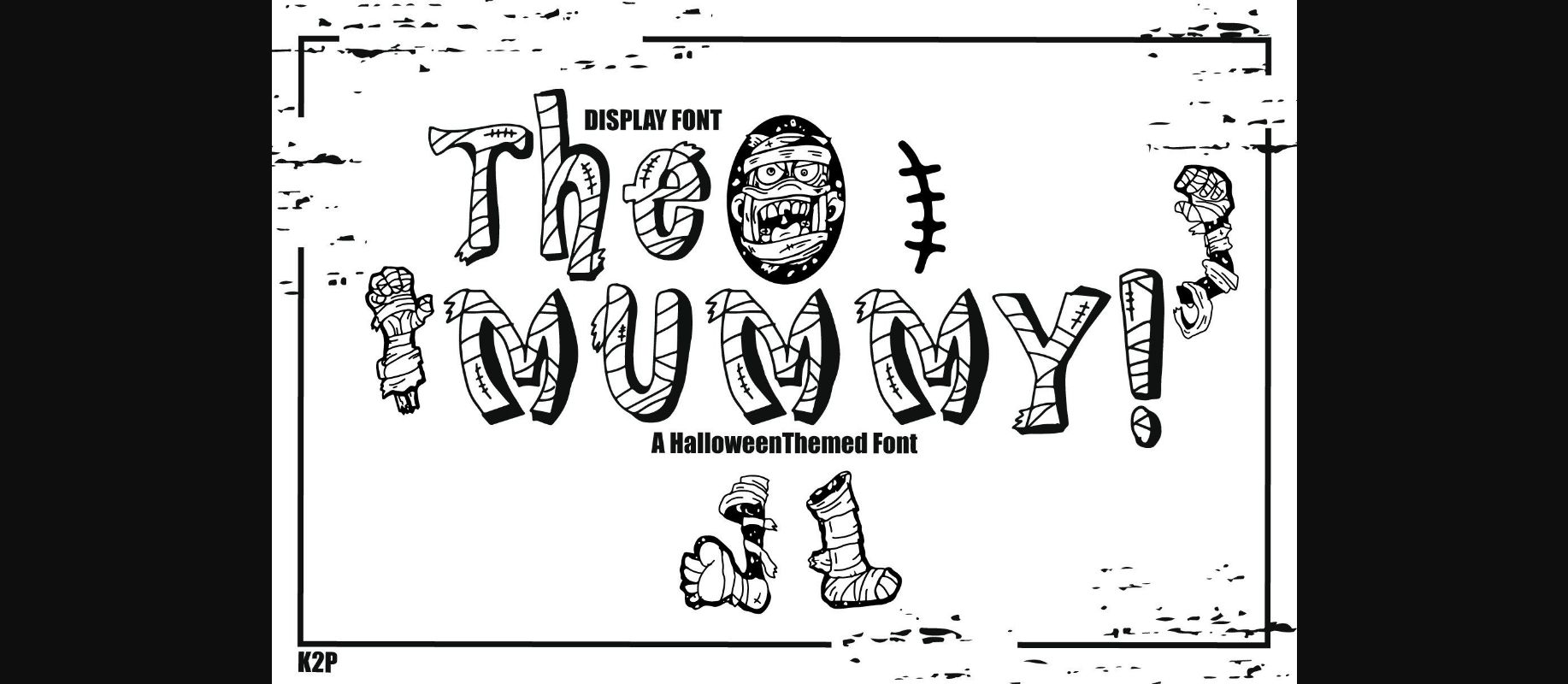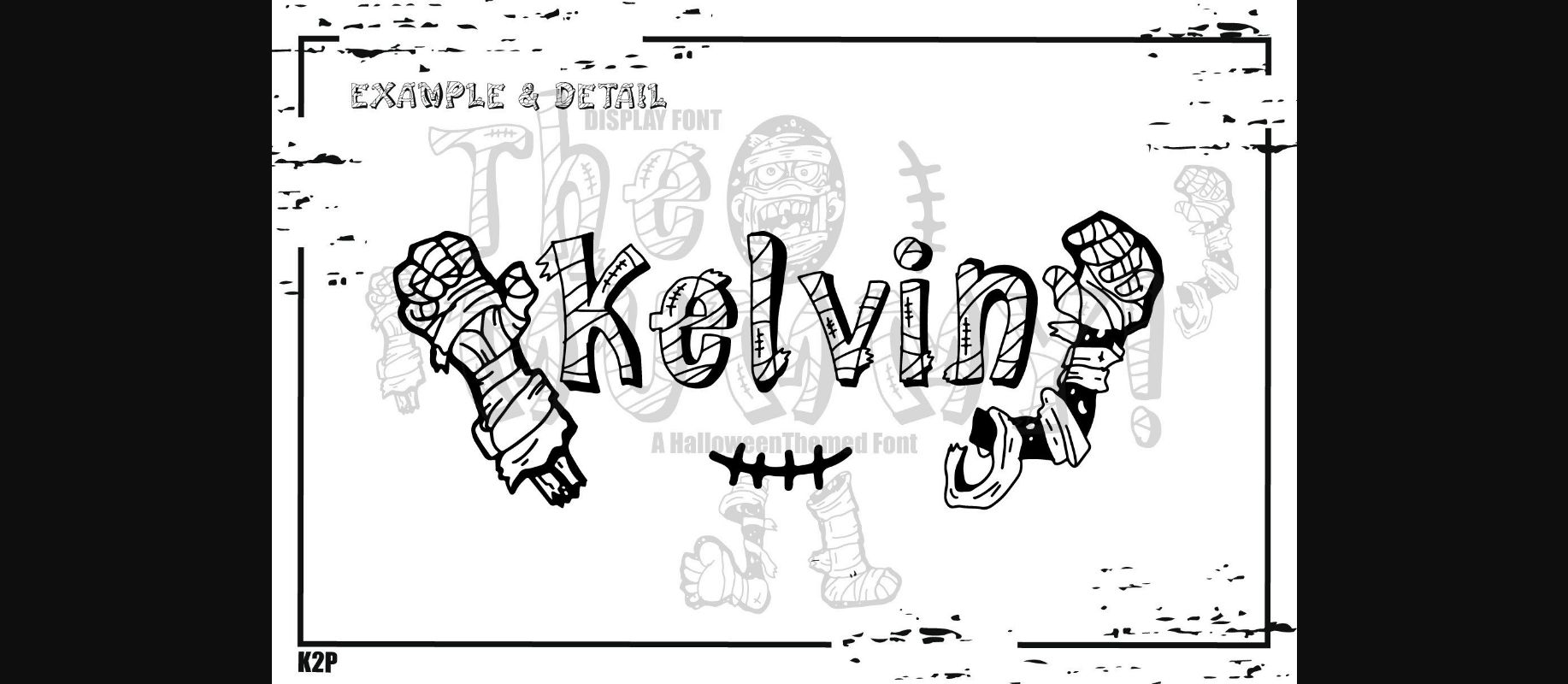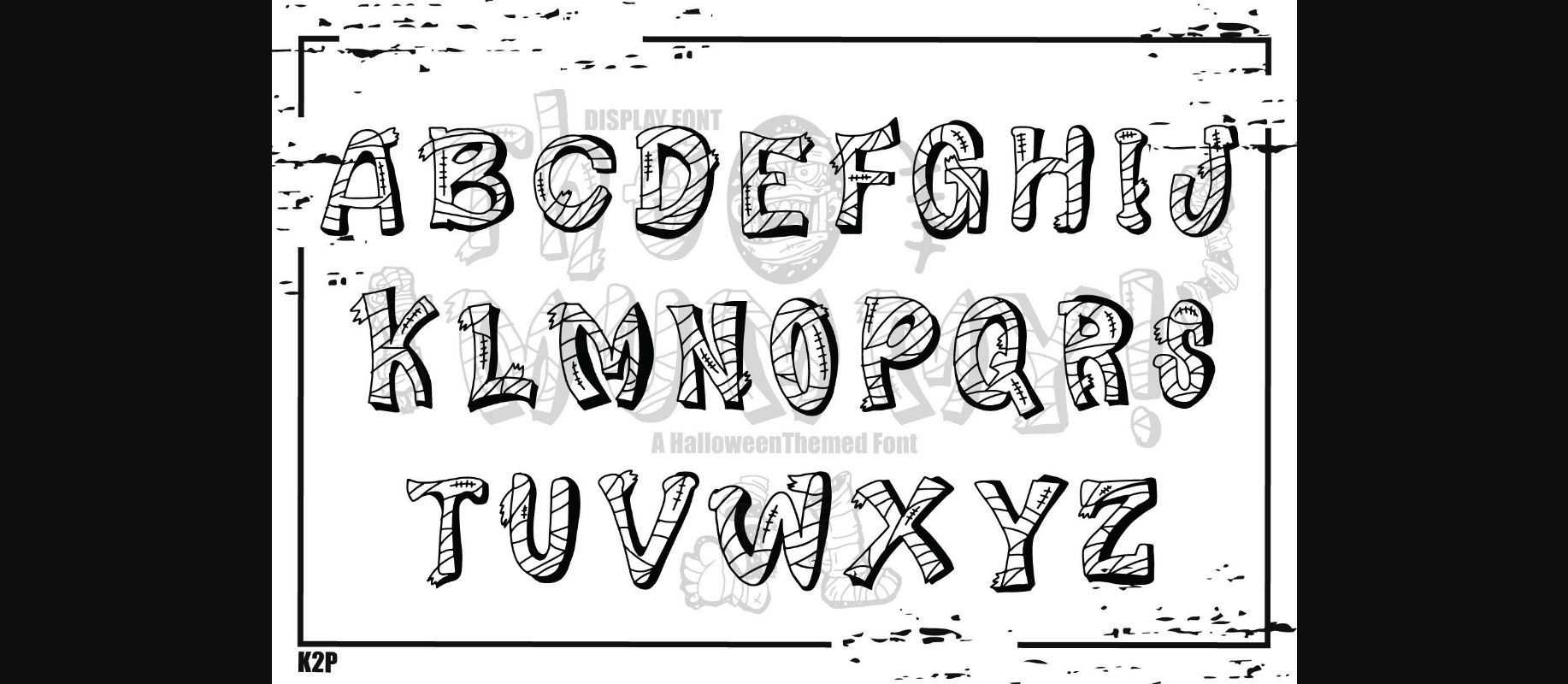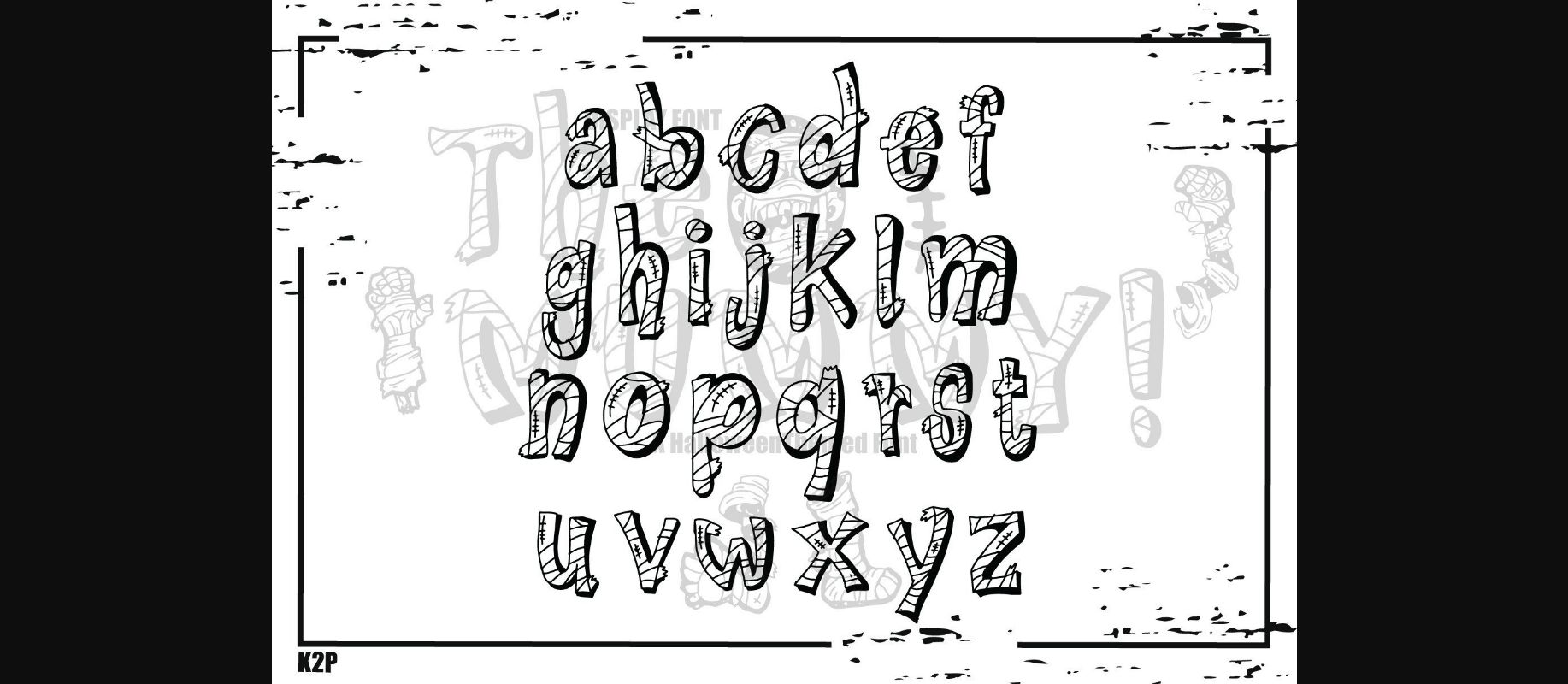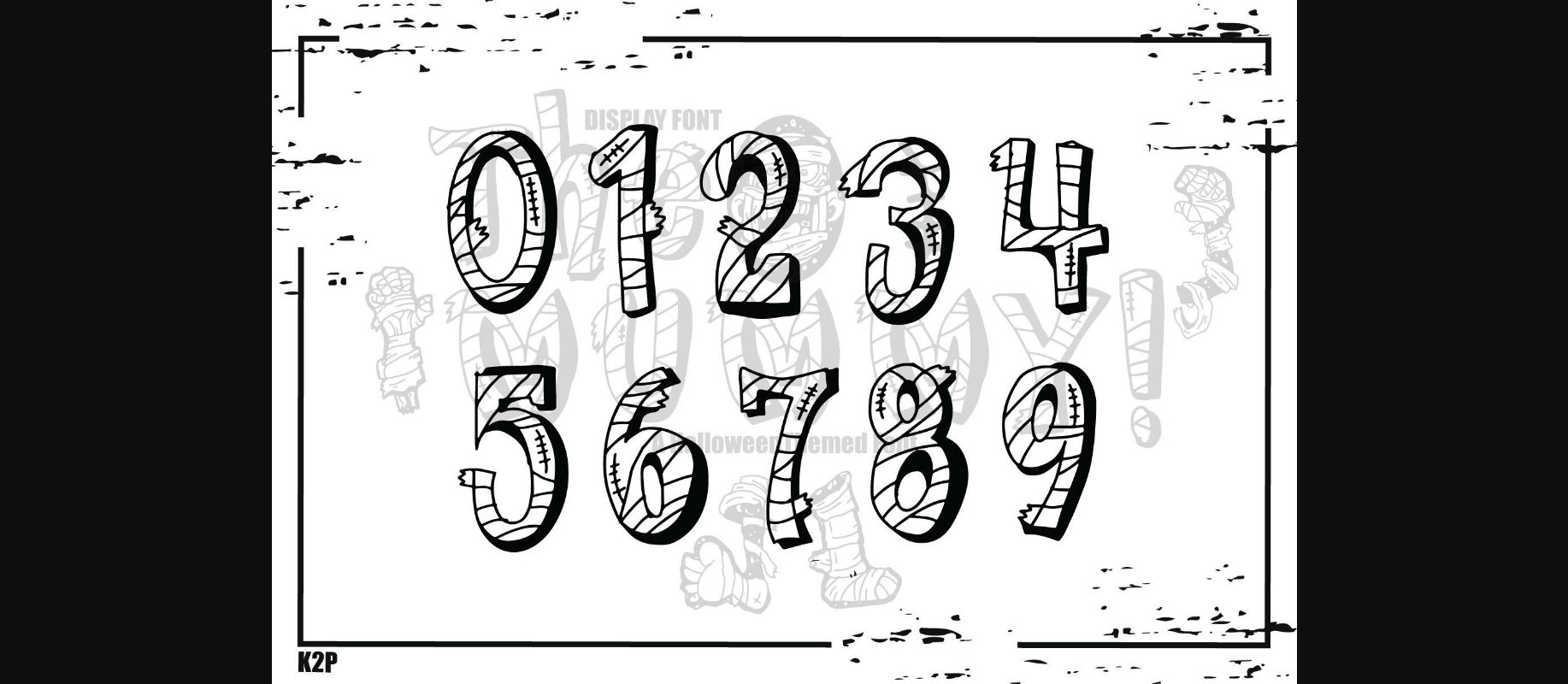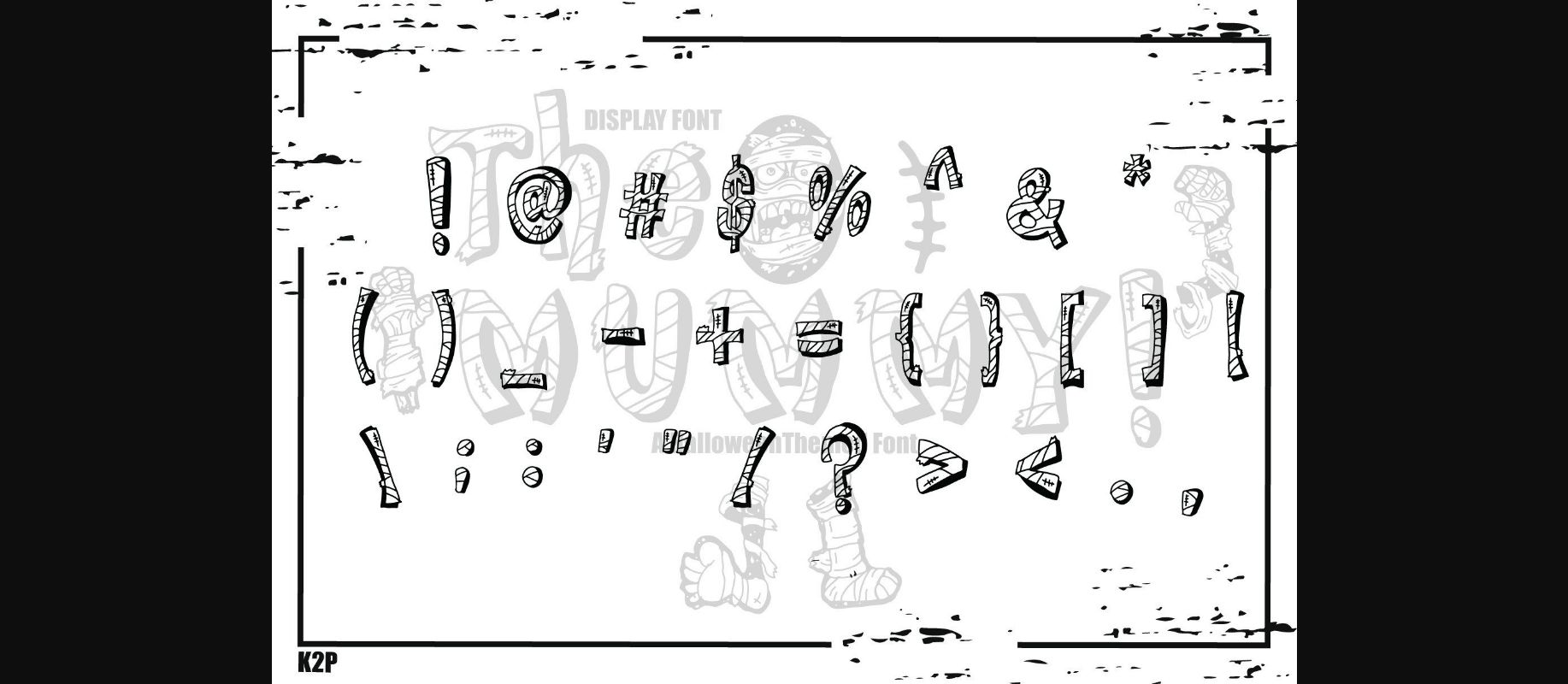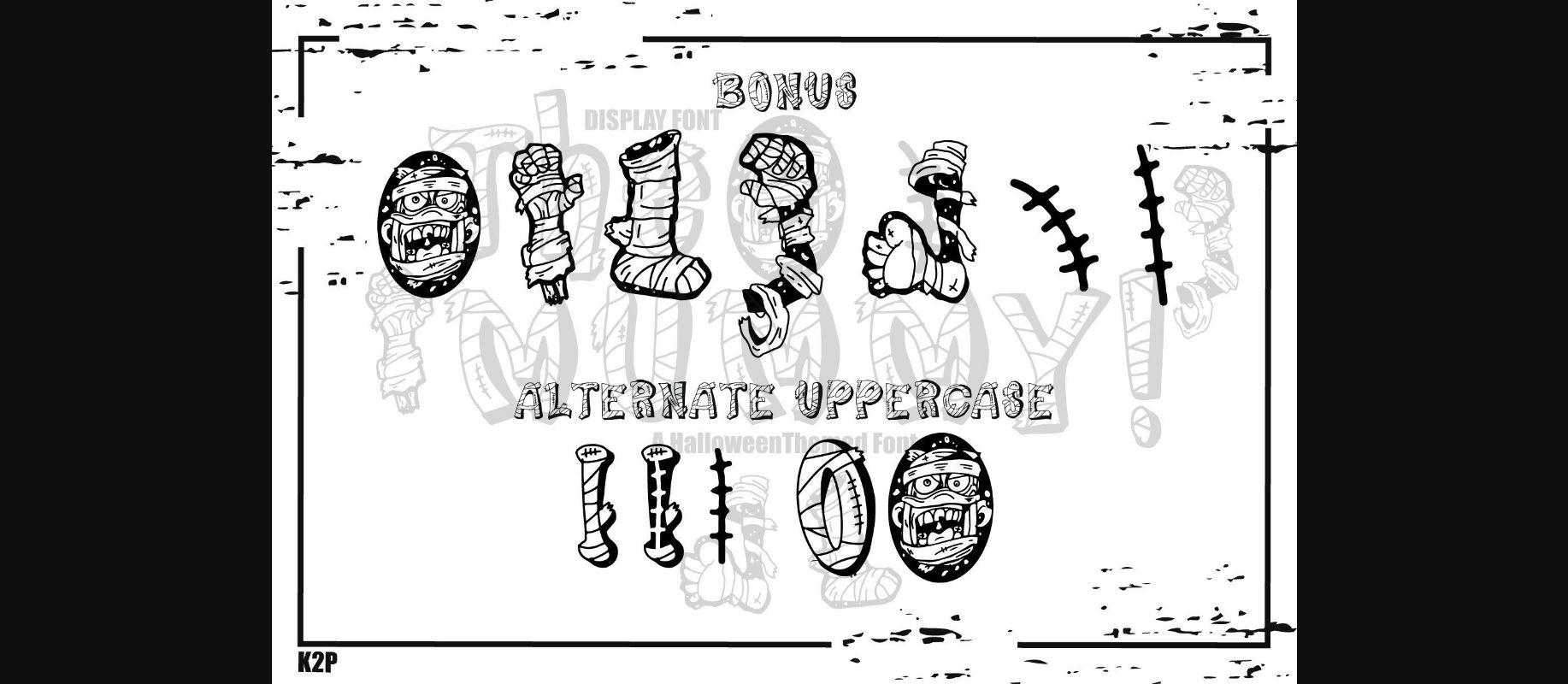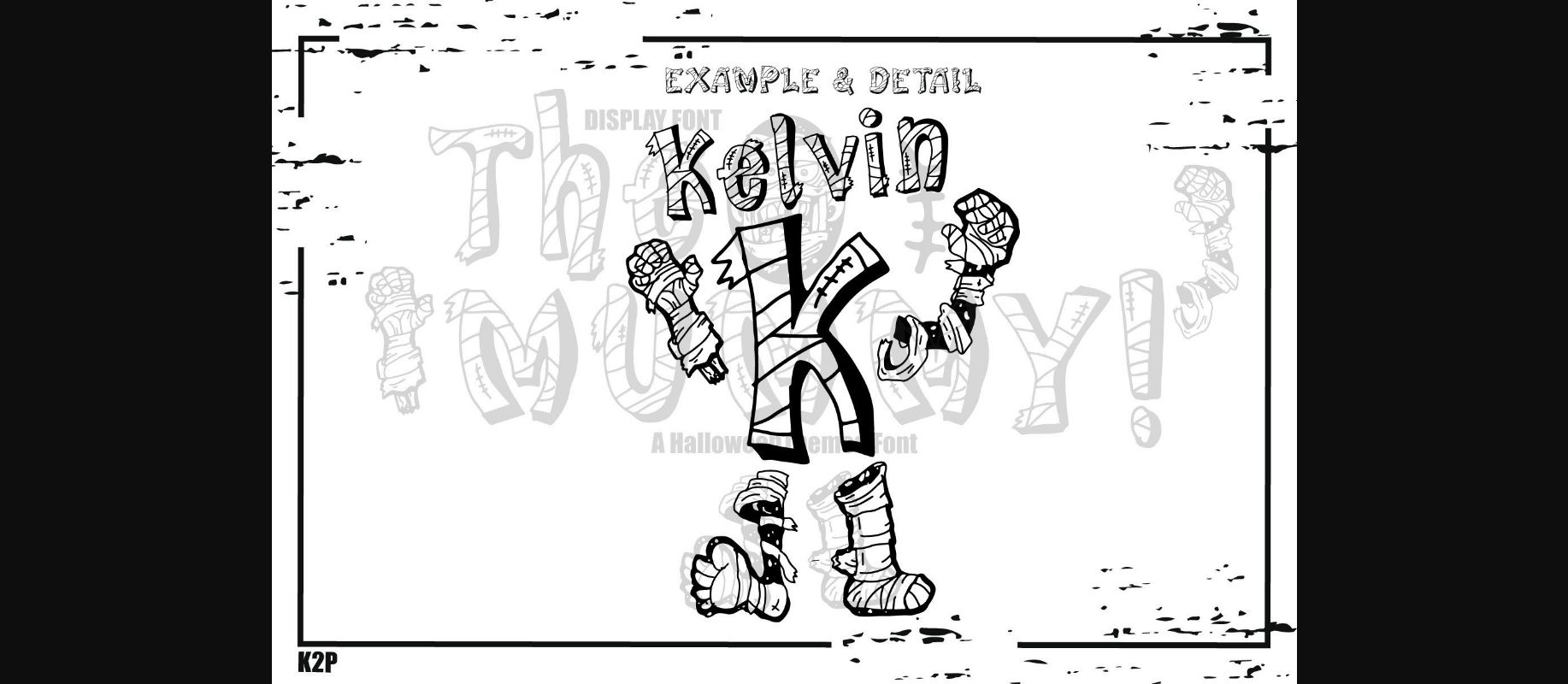
HomeDecorative FontsThe Mummy Font Decorative Fonts The Mummy Font FacebookXPinterestWhatsApp 1 of 10 ... The Mummy Font Poster 2... The Mummy Font Poster 3... The Mummy Font Poster 4... The Mummy Font Poster 5... The Mummy Font Poster 6... The Mummy Font Poster 7... The Mummy Font Poster 8... The Mummy Font Poster 9... The Mummy Font Poster 10... About The Mummy Font The Mummy is a fun and super spooky decorative font. It is perfectly suitable for any Halloween-related project or crafty idea! The only limit is your imagination. DOWNLOAD NOW People also explored Kogrand Font Velasquis Tamyra Font Pigade Font Rainbow Font Qoboyer Font Decorazo Font Lovila Font James Smith Arelina Font 487 0 TagsThe Mummy Font Previous articleChristmas Gift FontNext articleCute Ghost Font LEAVE A REPLY Cancel reply Comment: Please enter your comment! Name:* Please enter your name here Email:* You have entered an incorrect email address! Please enter your email address here Website: Save my name, email, and website in this browser for the next time I comment. Personal Use Free Bally Girl Personal Use Free Read more about this font Austins Personal Use Free Read more about this font Lanilla Personal Use Free Read more about this font Lazy Sunday Personal Use Free Read more about this font BLOG Free Fonts Risk: Why Free Fonts Can Be Dangerous for Designers Free Fonts Risk: Why Free Fonts Can Be Dangerous for Designers Using free fonts is a common practice in web and graphic design. However, the... Using Fonts in Digital Marketing: Tips to Strengthen Your Brand Identity Elegant Wedding Invitation Fonts – Handwritten & Script Fonts Best Fonts for T-Shirt Design – Top 2025 Picks